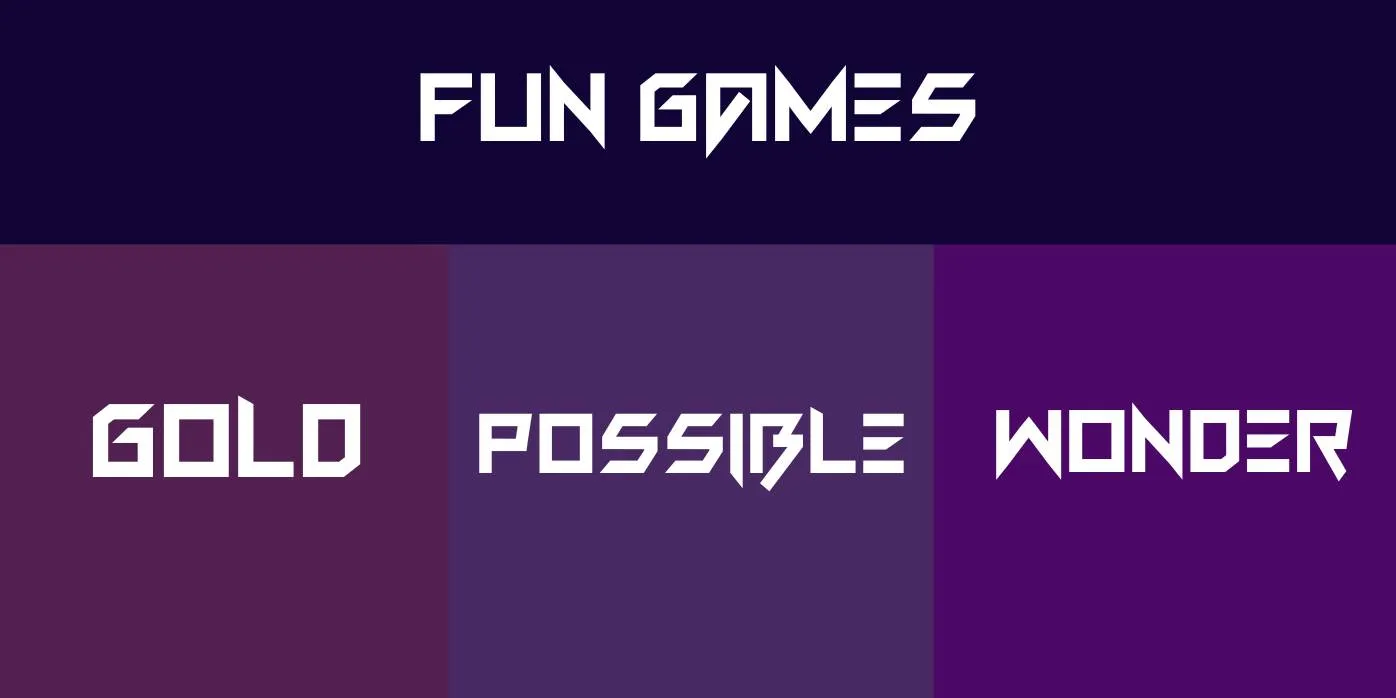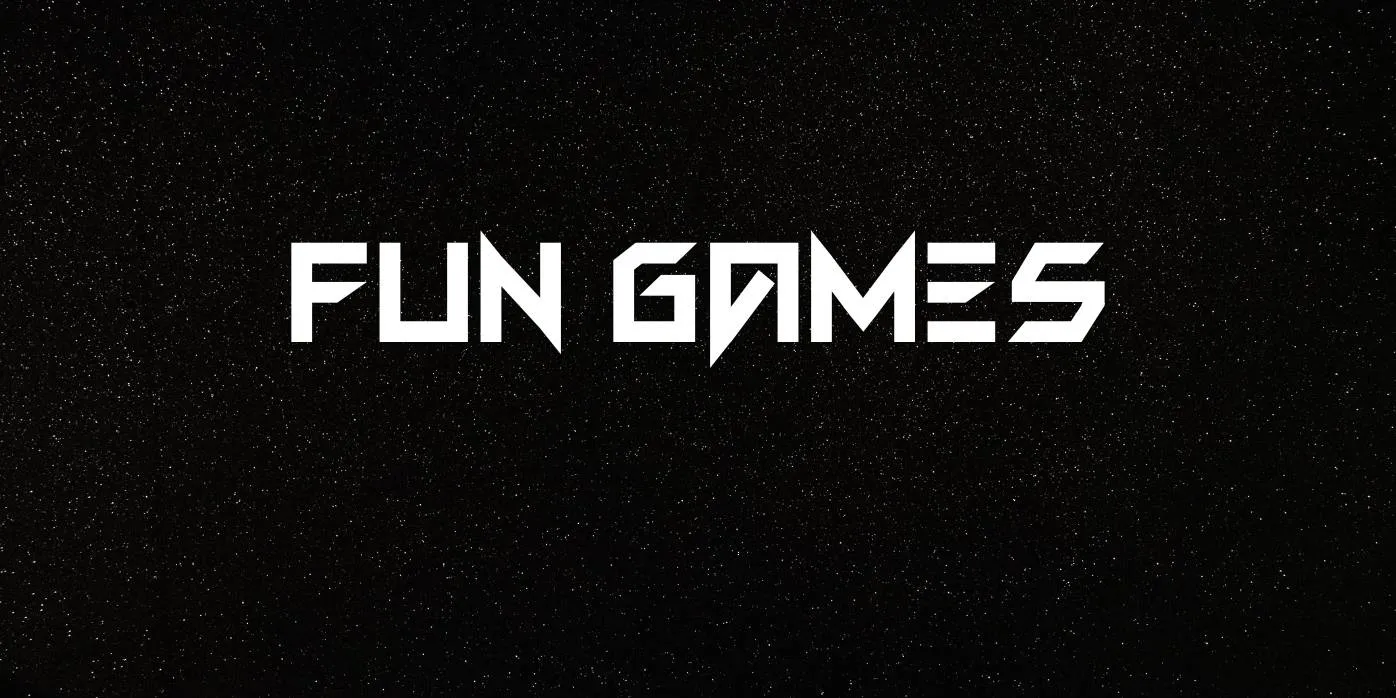
Fun Games Font
Let’s talk about a very interesting techno typeface Fun Games font. This amazing font is designed by String Labs Creative Studios. It is a very unique and interesting font. It is good for all types of Display projects.
The weight of the font is medium (normal) and its width is expanded. Unicode supported by this font is 2.0 and BMP only. It is a very attractive font, especially for video games and Sci-Fi movies. You can also use it for pairing with other fonts like parda font to give a more attractive look to your projects.
Usage You can use this font making so many different attractive projects. It has all small letters, capital letters, punctuations, symbols, and special characters. For making attractive logos of different types of games and titles for the games you can utilize this font as well. It is good for both print and digital media.
To make movies that are related to Sci-Fi or technology posters, banners, flyers, and brochures you can use this stylish font as well. You can also use this typeface for making subtitles for video games and movies. To make social media advertisements, YouTube thumbnails, and other advertisement purposes you can use this font. It is also considered a suitable choice for making website and graphic designs.
This stunning font was designed by String Labs Creative Studios. It can be used to design many projects by using this font. It was created on 28-07-2020. Is the Fun Games Font good for designing websites?
It is a very nice and stylish font and you can use it for making different types of projects. As well as for amazing website designs also.